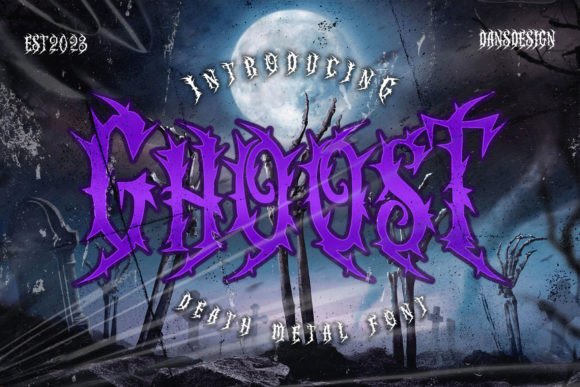
Step into the realm of darkness and intrigue with Ghoost Font, the ultimate Horror Metal Font that will haunt your designs with its distinct, highly detailed charm. Inspired by the eerie beauty of the unknown, Ghoost Font is a blackletter font family that conjures up images of ancient rituals, mystical creatures, and spine-chilling tales.
Unleash your creativity and let your imagination run wild as you explore the endless possibilities that Ghoost Font brings to your design projects. Whether you're crafting exquisite metal album covers, designing haunting movie posters, or creating captivating logos for your tattoo business, Ghoost Font will add an undeniable touch of mystery and allure.
With its intricate details and sharp edges, Ghoost Font is the perfect choice for creating vintage designs that evoke a sense of nostalgia and timeless elegance. Transport your audience back in time as you use Ghoost Font to design retro-urban graphics, posters, and branding materials that capture the essence of a bygone era.
But Ghoost Font's versatility doesn't stop there. Its dark and edgy character makes it an ideal font for horror-themed designs, whether you're creating chilling book covers, spine-tingling Halloween invitations, or haunting social media graphics. Embrace the macabre and let Ghoost Font unleash your inner storyteller.
So, if you're ready to embark on a journey through the dark side of design, Ghoost Font is your perfect companion. Let its haunting beauty cast a spell on your creative projects and leave your audience spellbound.